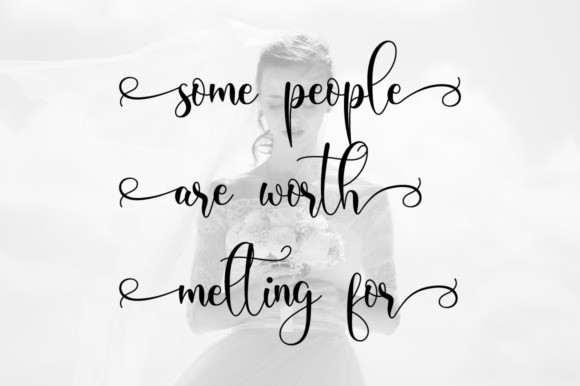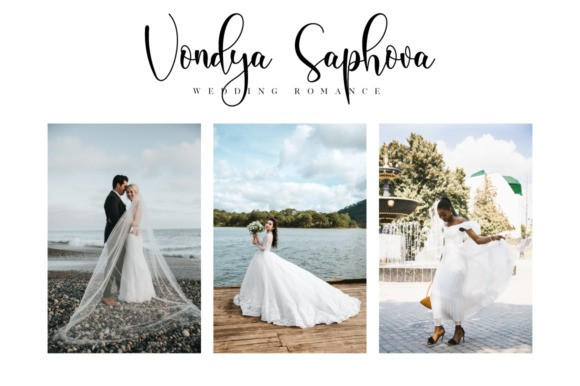
Delima Calligraphy Font
A script font with a smooth handwritten style. Delima is perfect for branding projects, homeware designs, product packaging, use in name card, invitation cards, etc. Simply as a stylish text overlay to any background image or anything requiring a sprinkle of elegance.